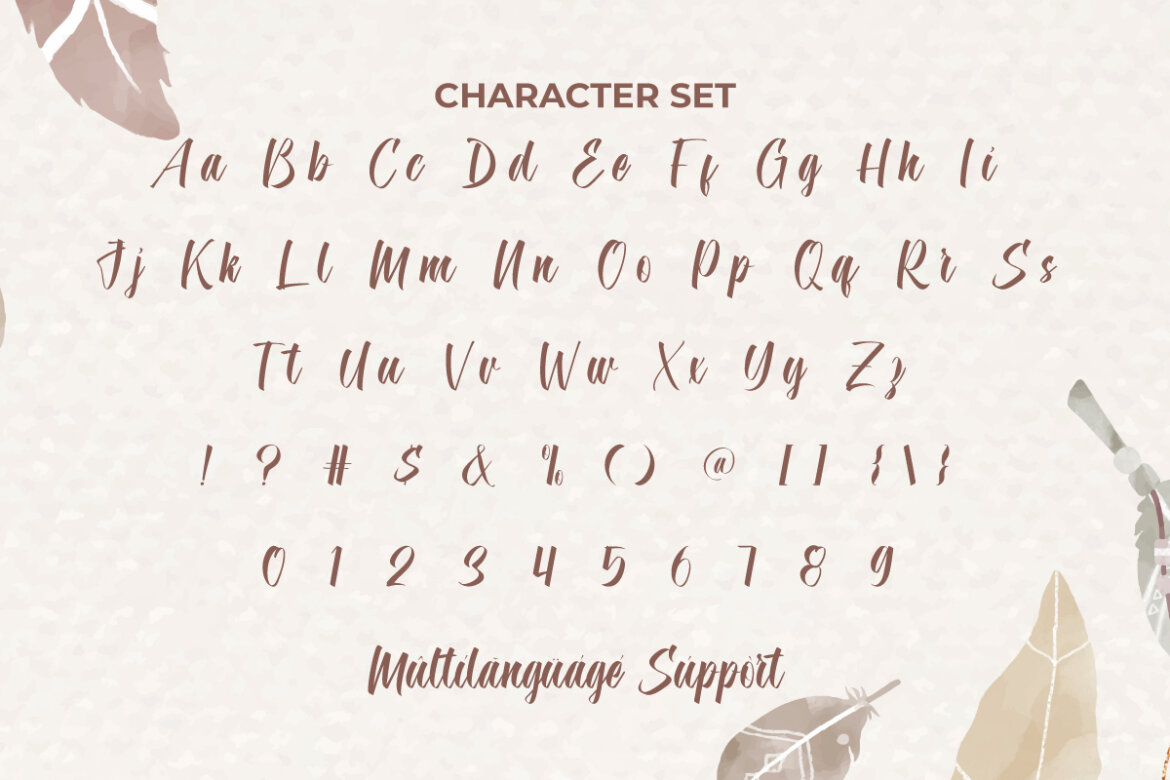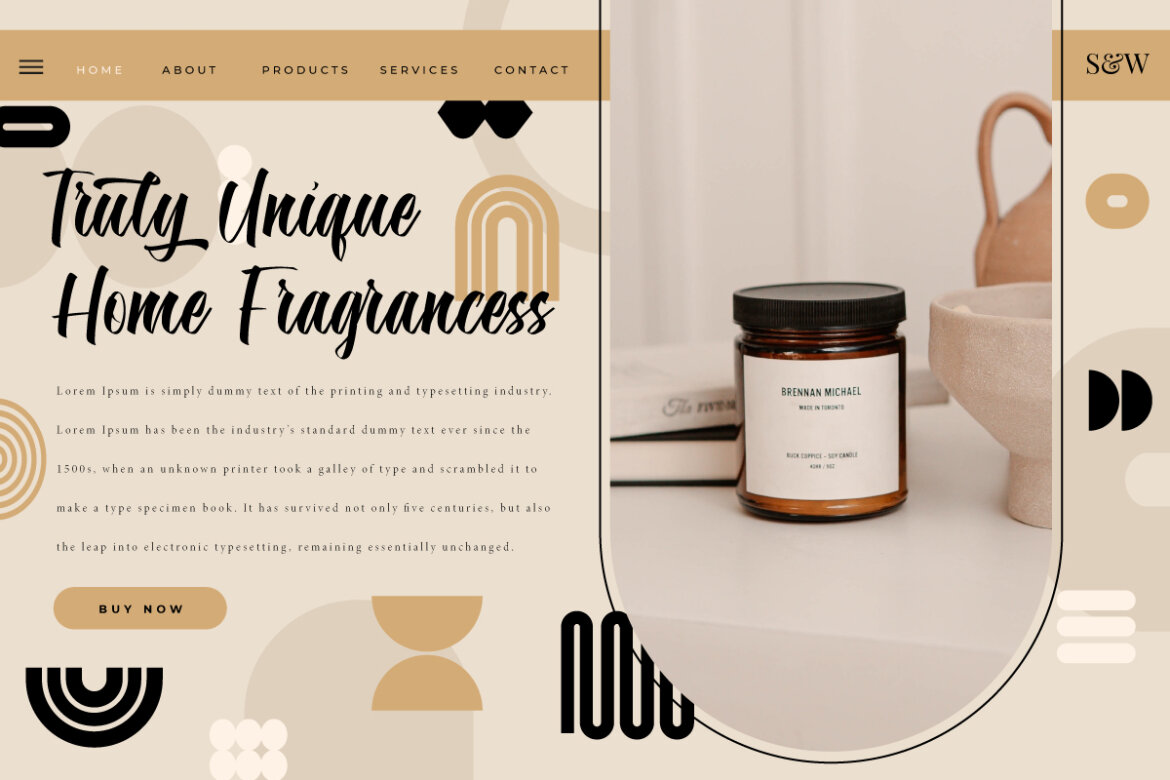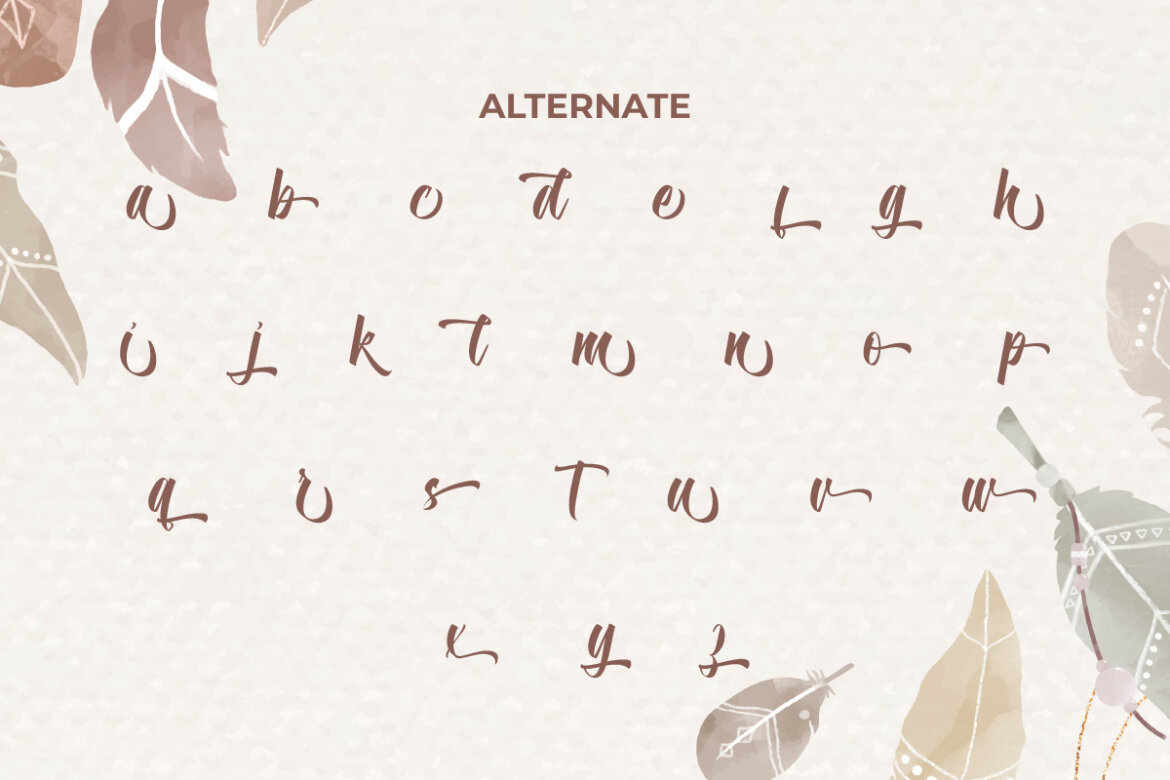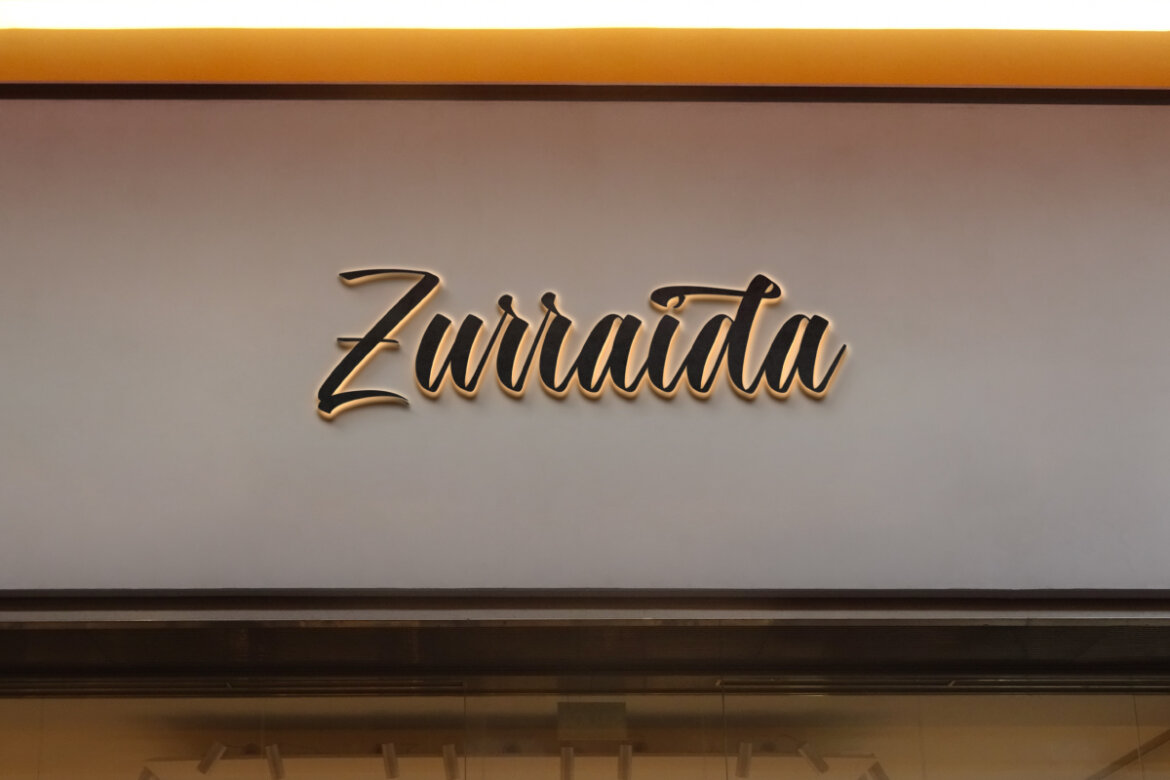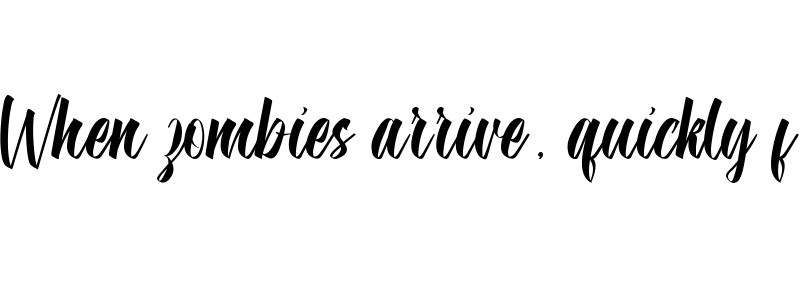
Monday Success
Monday Success Font is a gorgeous bold script font that brings elegance and a personal touch to your designs. Perfect for apps, banners, blogs, branding logos, headers, headline, invitations, labels, logos, pamphlets, quotes, signage, stickers, title, watermarks, websites, and more. This font will make any of your creations stand out.
Monday Success Font comes with a full set of Uppercase and Lowercase letters, Number, Punctuation, Symbol, Ligature and Alternates. The versatile style is able to perfect and add charm to a robust presence. Ideal for cosmetic, fashion, fragrance maker, handicraft, skincare, spa salon, and many more! This could be your choice to create an impressive and cozy design.
Monday Success Font also supports multilingual characters which are ready to use either on Windows or Mac machines with a simple installation. In order to use alternative characters, usually we just need to block the end letters and select alternative letters on glyphs option. Combine different characters for a bespoke, handcrafted feel. It’s tested to work well in the Adobe Apps (Illustrator, Adobe InDesign, Adobe Photoshop) even work on Microsoft Word. All of these characters are available through the glyph panel, moreover each letter has its own unicode (PUA) so you can access all the characters easily.